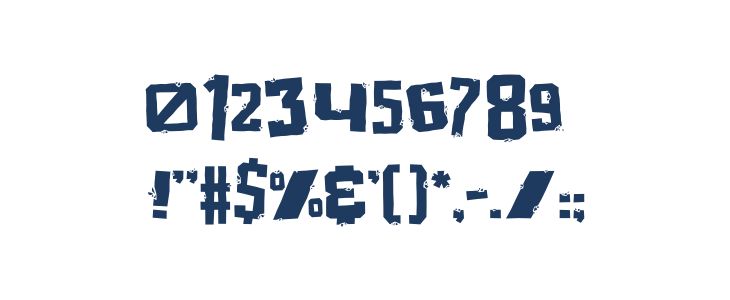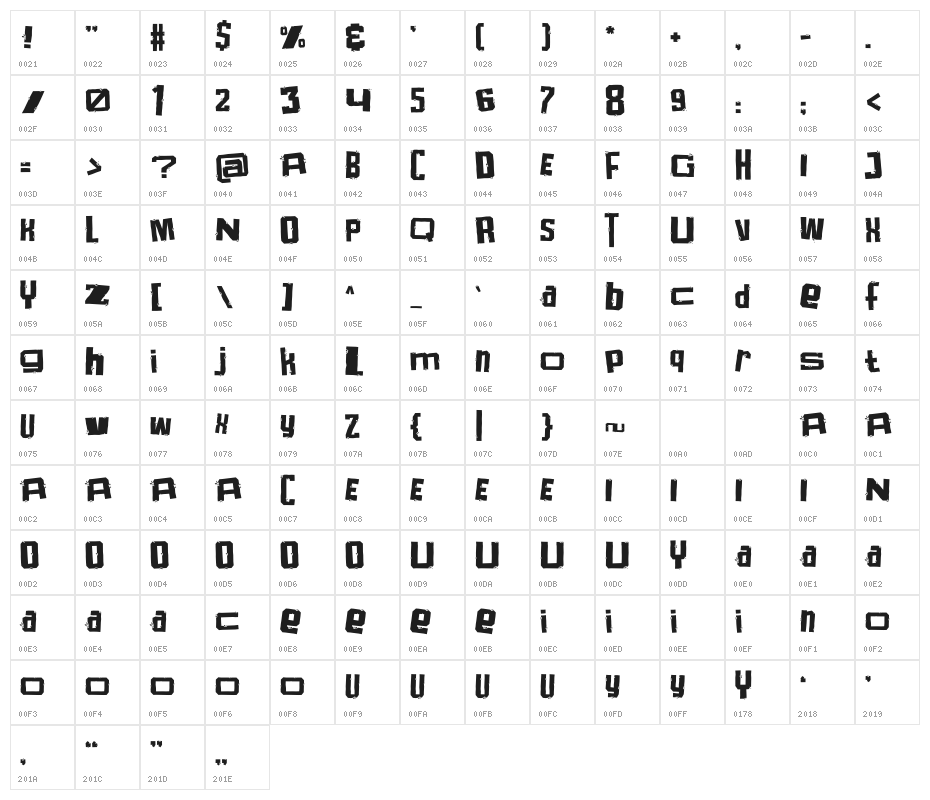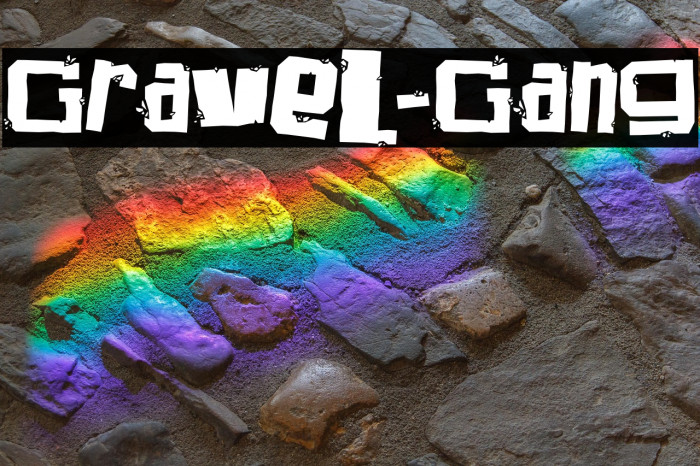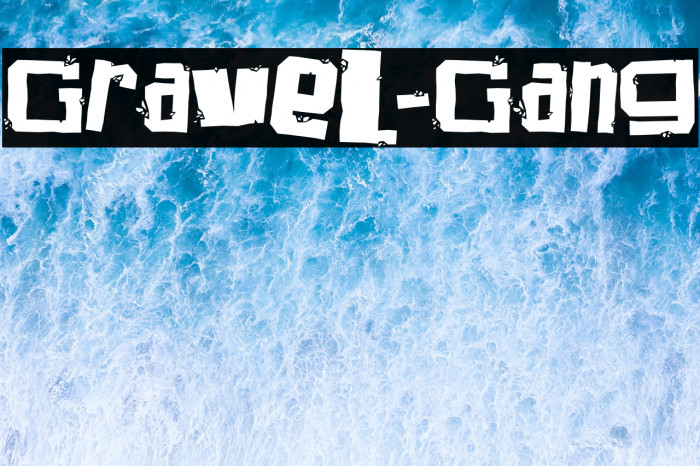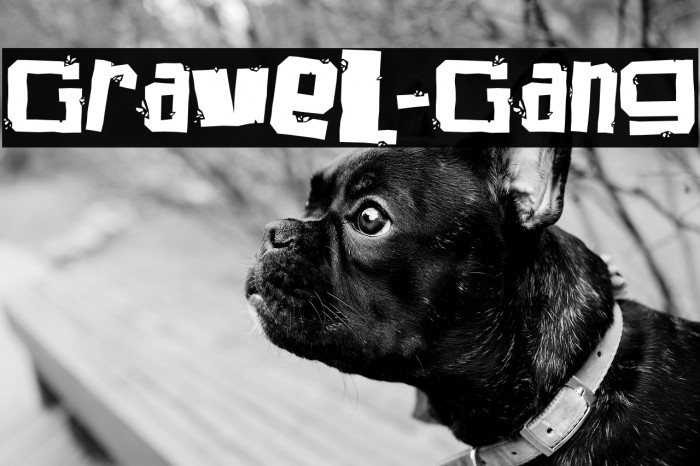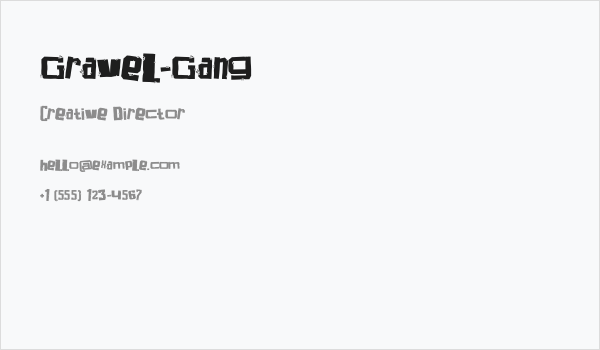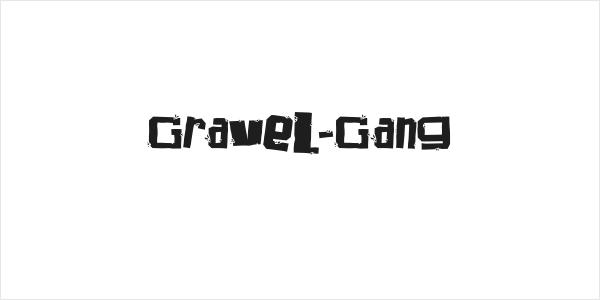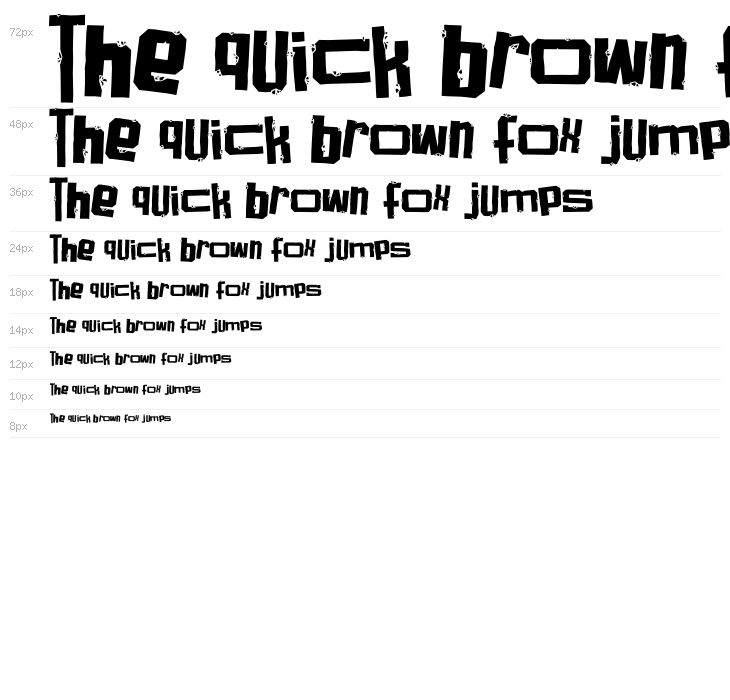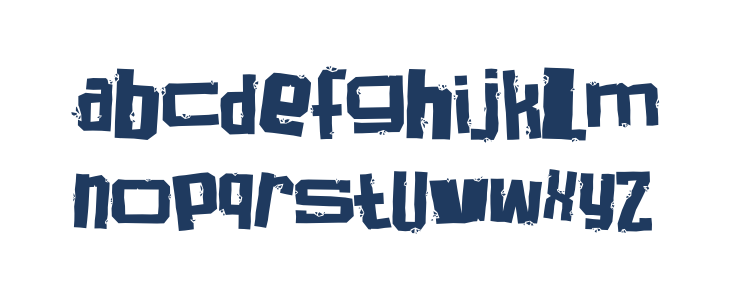
Gravel-Gang Font
Gravel-Gang Description
This font features a rugged, distressed style with a bold and chunky appearance. The characters are unevenly shaped, giving them a hand-cut, grunge-like aesthetic. The uppercase and lowercase letters maintain a consistent roughness, with jagged edges and irregular forms. Numbers and special characters follow the same design, enhancing the overall gritty and raw look. This font is ideal for projects that require a strong, rebellious, or urban vibe, making it suitable for music album covers, posters, or streetwear branding.
| Overall Style | Grunge, Urban, Rebellious |
| Proposed Projects | Music album covers, posters, streetwear branding, urban-themed designs. |